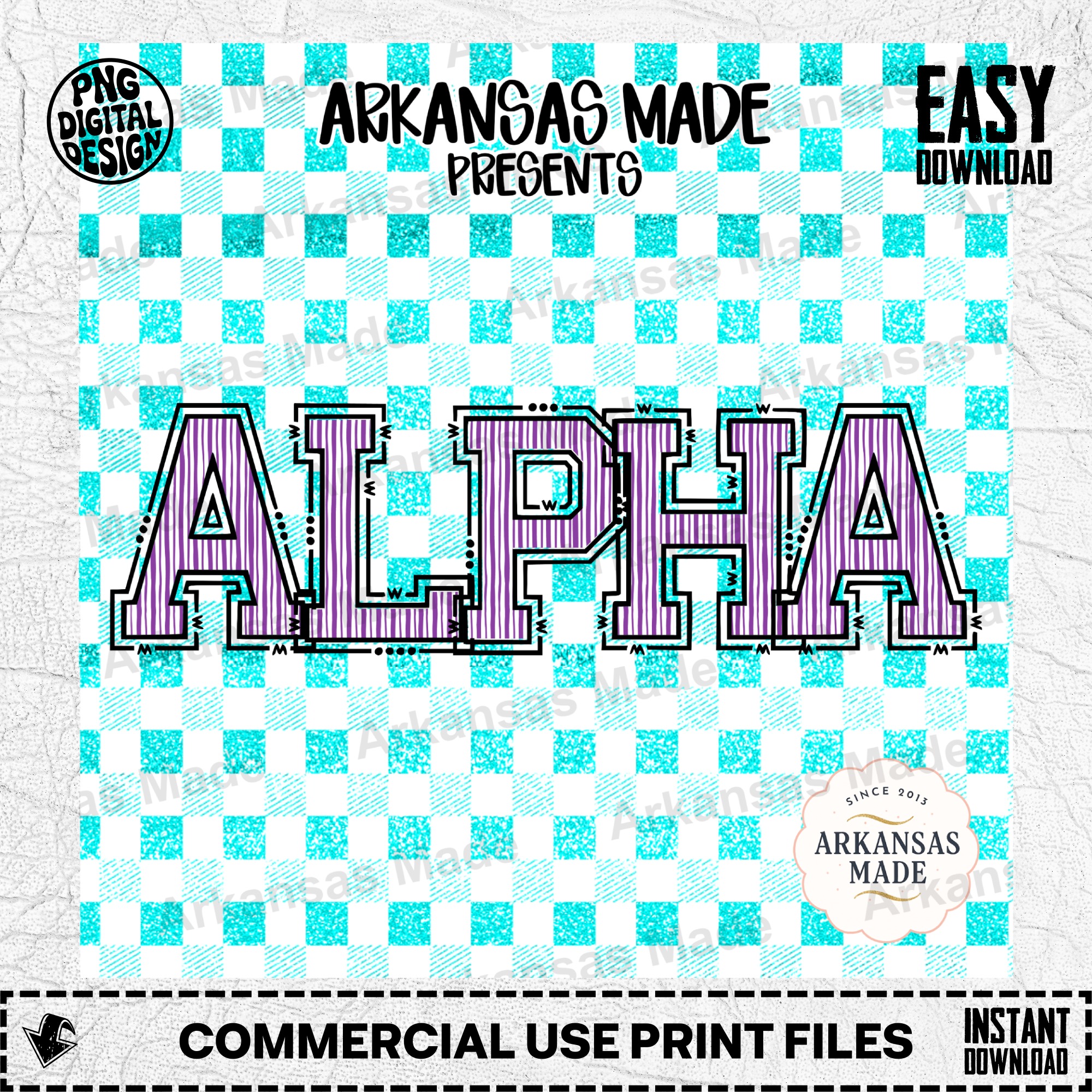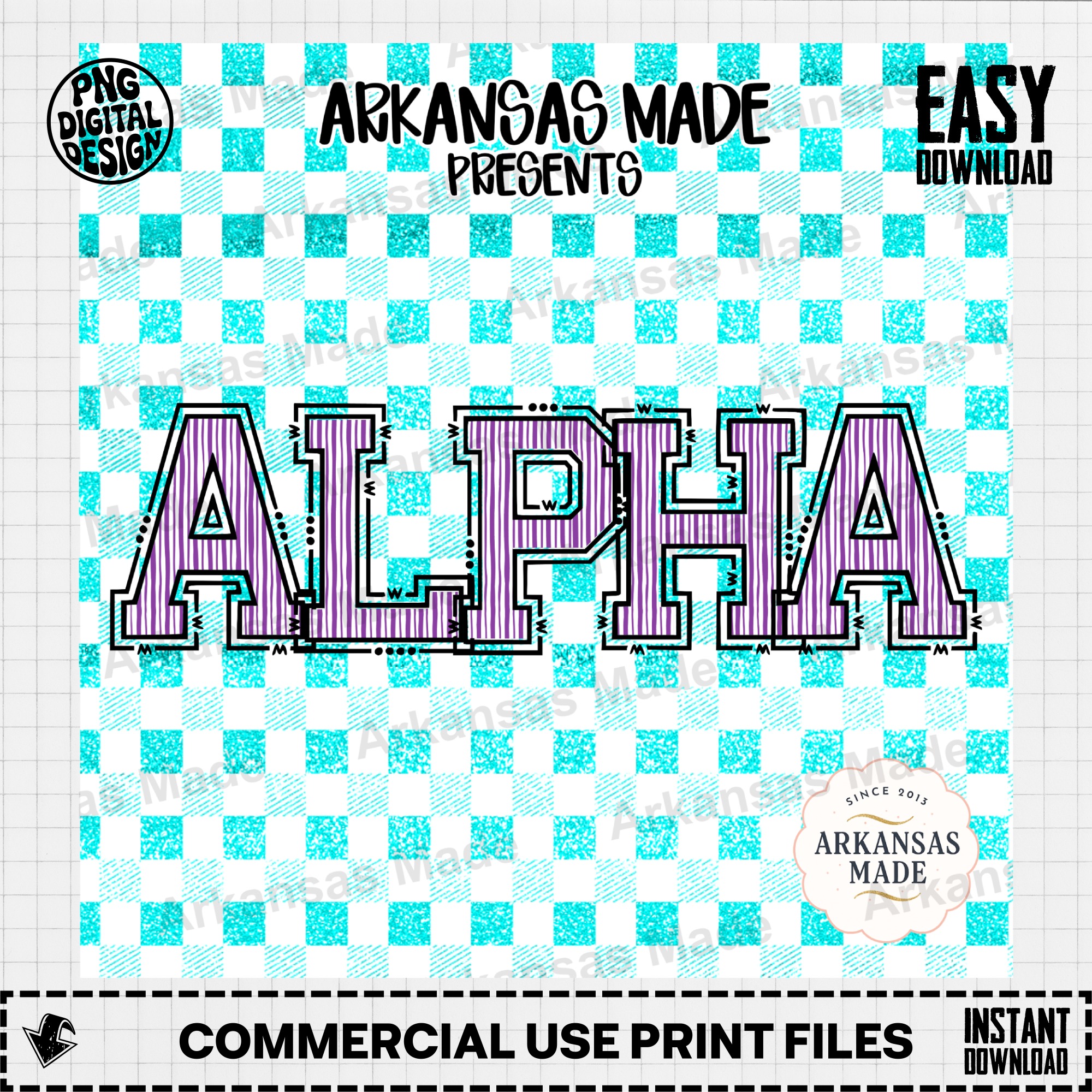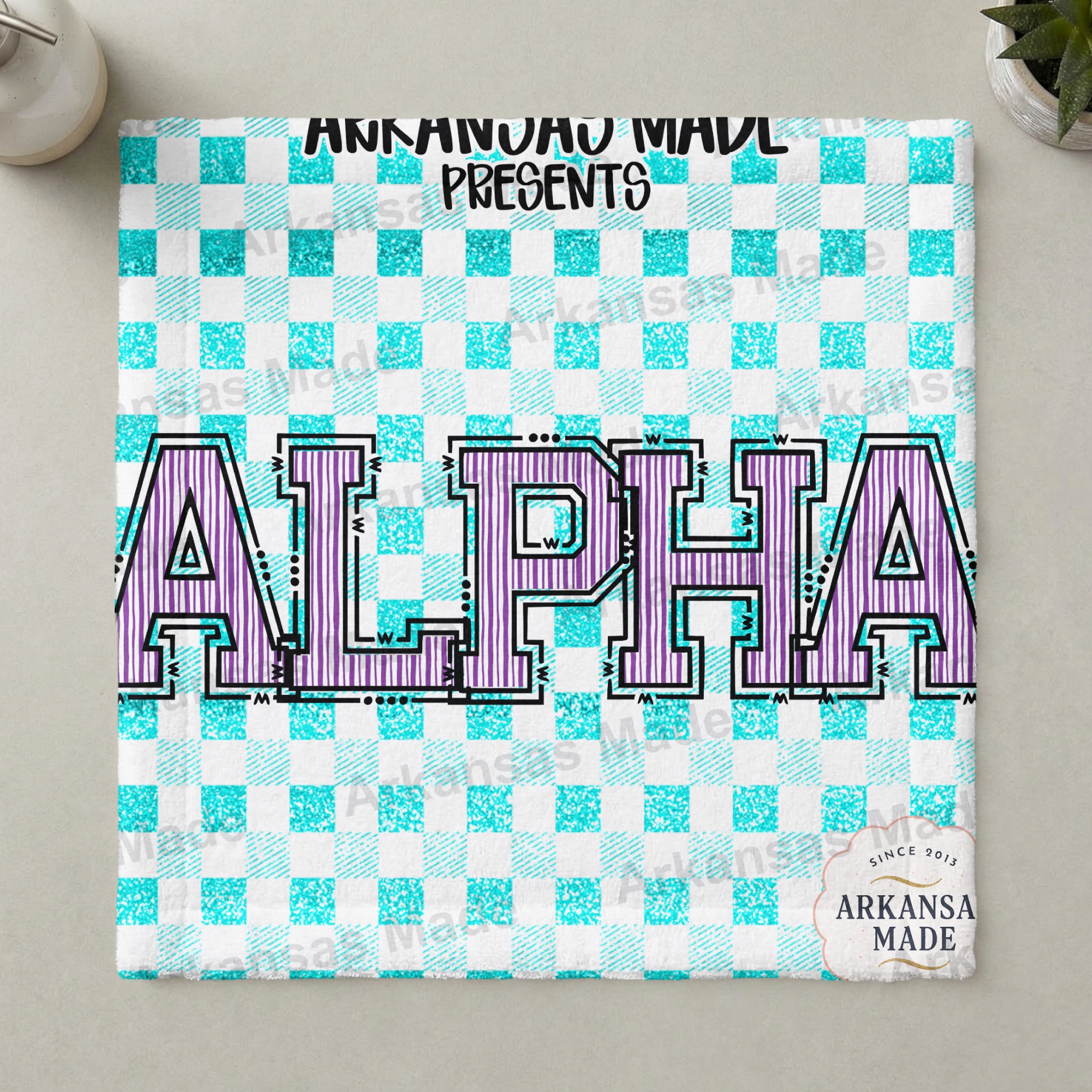
Elevate your projects with this vibrant Alpha Digital Download Alpha Set featuring bold varsity letters and a unique glitter checkered design. Perfect for sorority sisters, college students, and Greek life enthusiasts, this digital alphabet brings a spirited, sporty chic vibe to any creation. Use it for personalized gifts, Big/Little reveals, Bid Day crafts, or game day apparel. Its playful mix of purple stripes and faux teal glitter on a checkerboard background makes a statement.